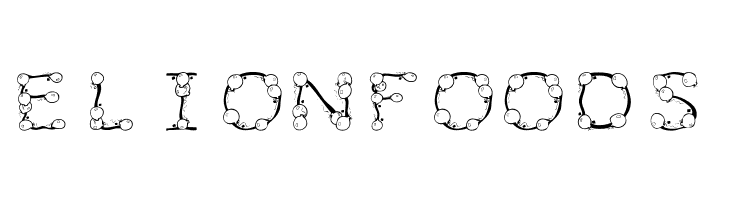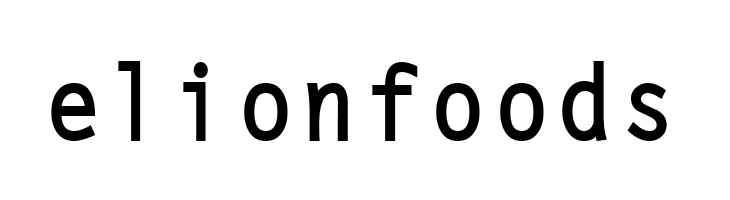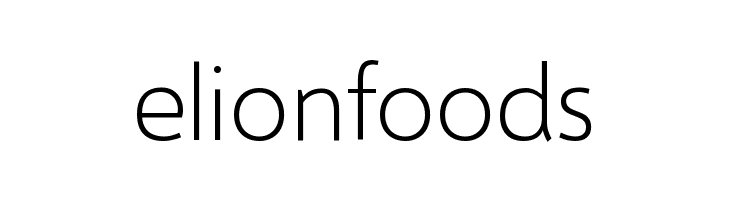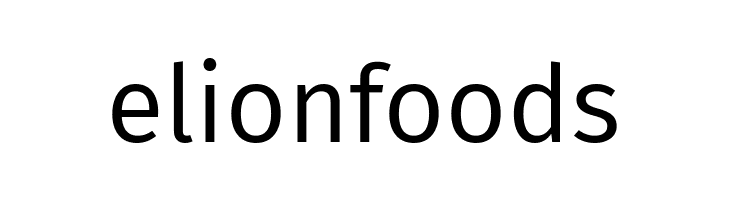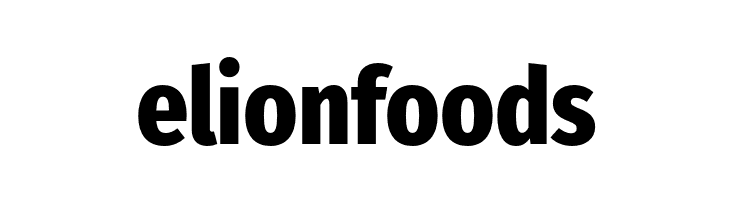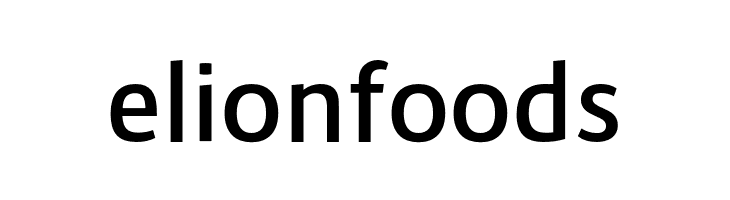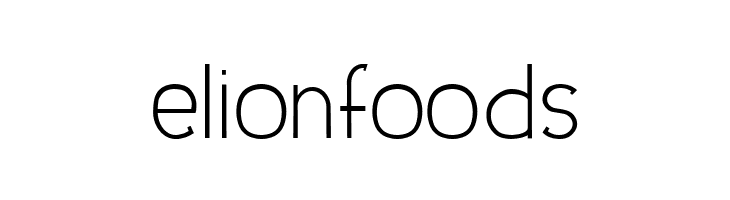
A decorative font with characters enclosed in medal-like shapes, perfect for playful designs.
A playful, balloon-inspired decorative font with interconnected circular shapes.
A bold, modern sans-serif font with clean lines and excellent readability.
A modern, light, and clean sans-serif font with excellent readability.
A modern, geometric sans-serif font with excellent readability.
A bold, condensed sans-serif font with clean lines and excellent readability.
A bold, modern sans-serif font with clean lines and excellent readability.
A modern, geometric sans-serif font with clean lines and excellent readability.
A modern, semi-bold sans-serif font with excellent readability and a professional appearance.
A modern, light sans-serif font with clean lines and excellent readability.